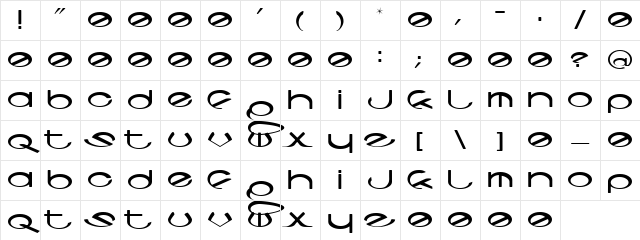
Codeca Regular Free Font
Codeca Regular
Design Context for Codeca
Codeca uses fixed-width spacing throughout, giving it the structured, systematic character associated with coding environments and technical documentation.
Pro Tip: Use Codeca with slightly increased line-height for extended reading - fixed-width spacing can feel dense in longer passages without extra breathing room.